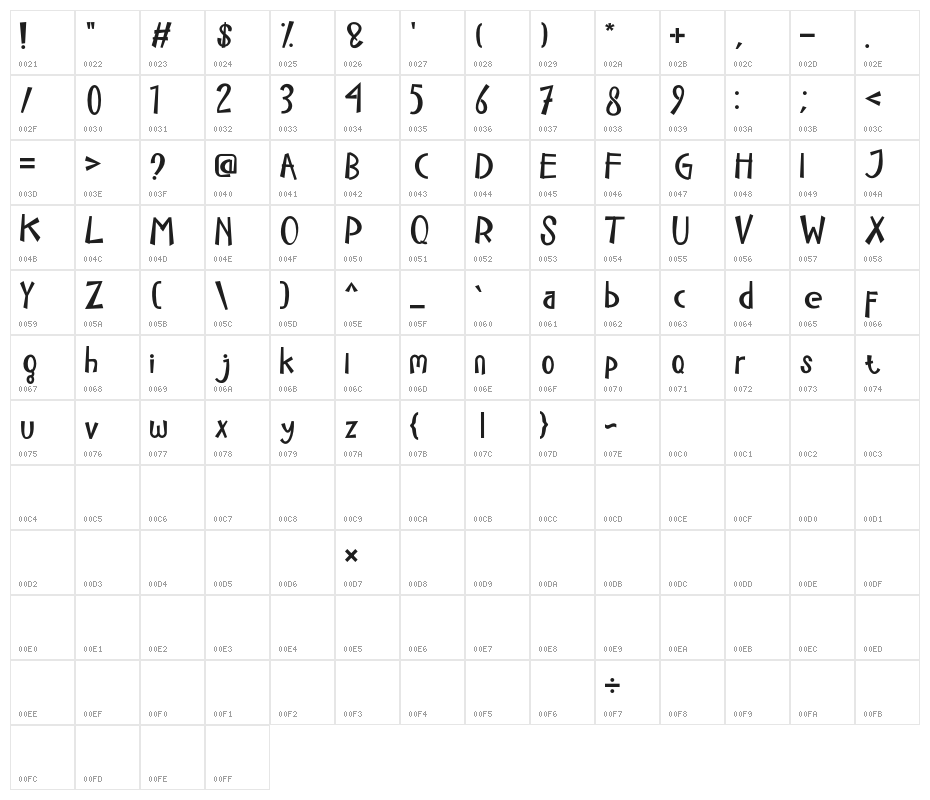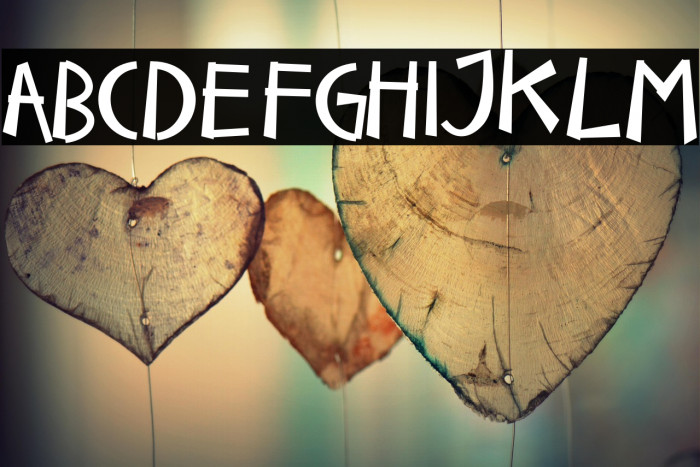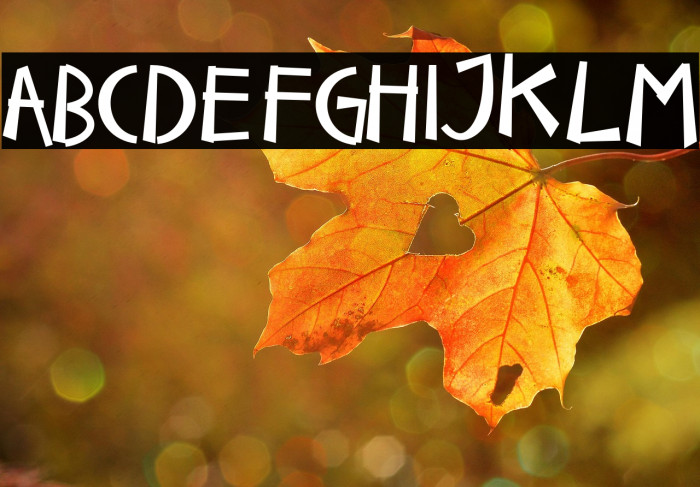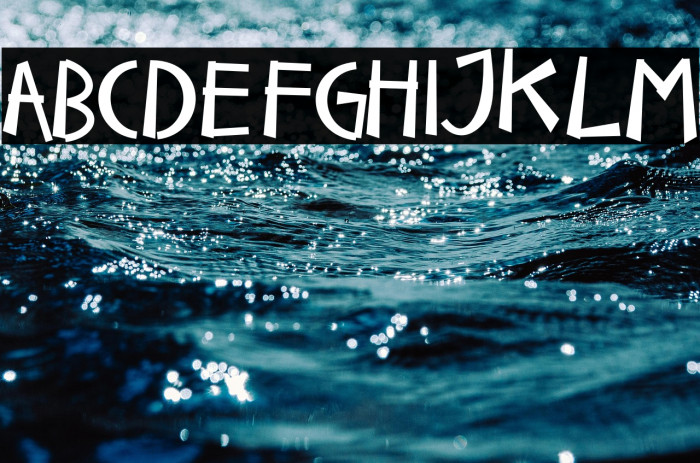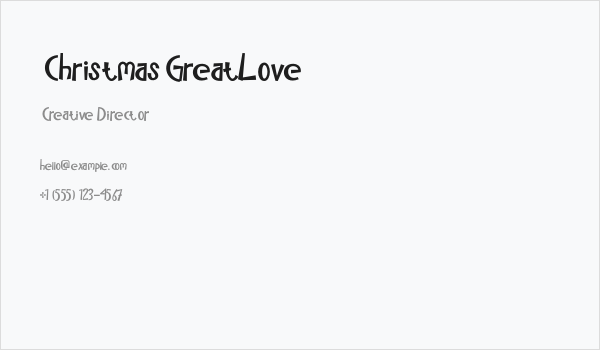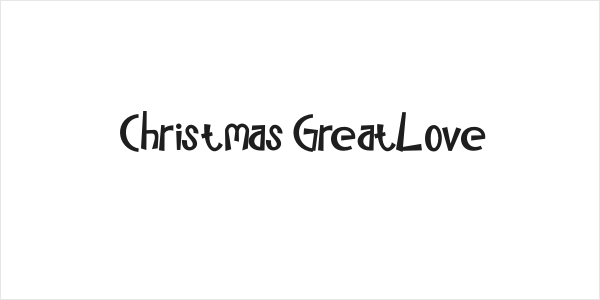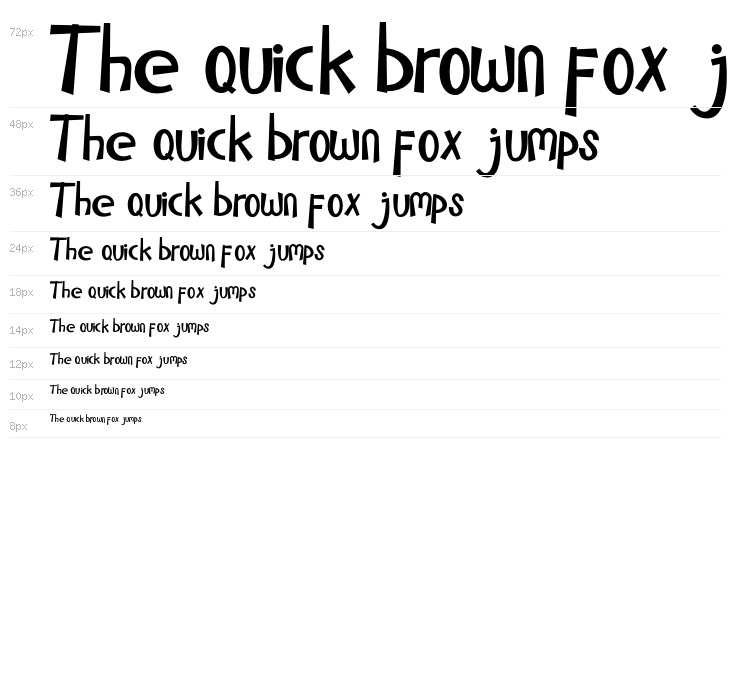
ChristmasGreatLove Font
ChristmasGreatLove Description
This playful and whimsical font features a unique blend of bold and curvy strokes, creating a lively and festive appearance. The uppercase letters are tall and slightly narrow, with exaggerated curves and angles that give them a dynamic feel. The lowercase letters maintain a consistent style, with rounded edges and a playful bounce that adds to the font's charm. The numbers are bold and easy to read, while the special characters are designed with the same playful spirit, making them perfect for adding a touch of fun to any project. The overall style is reminiscent of holiday cheer, making it ideal for festive designs.
| Overall Style | Festive, Playful |
| Use Case | Headlines, Logos, Decorative text |
| Proposed Projects | Ideal for holiday cards, festive invitations, playful branding, and decorative posters. |